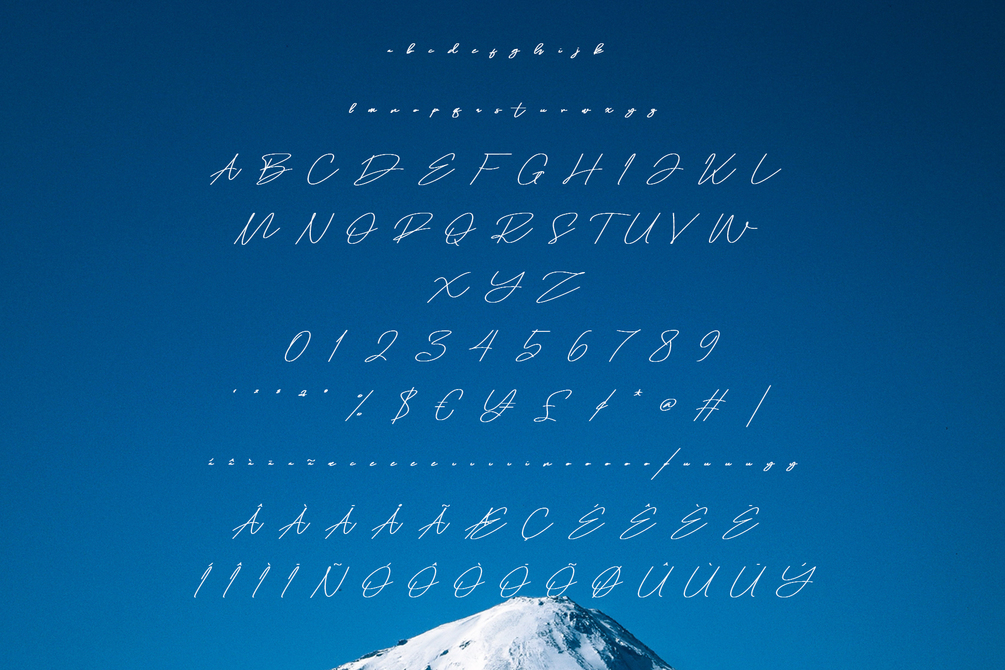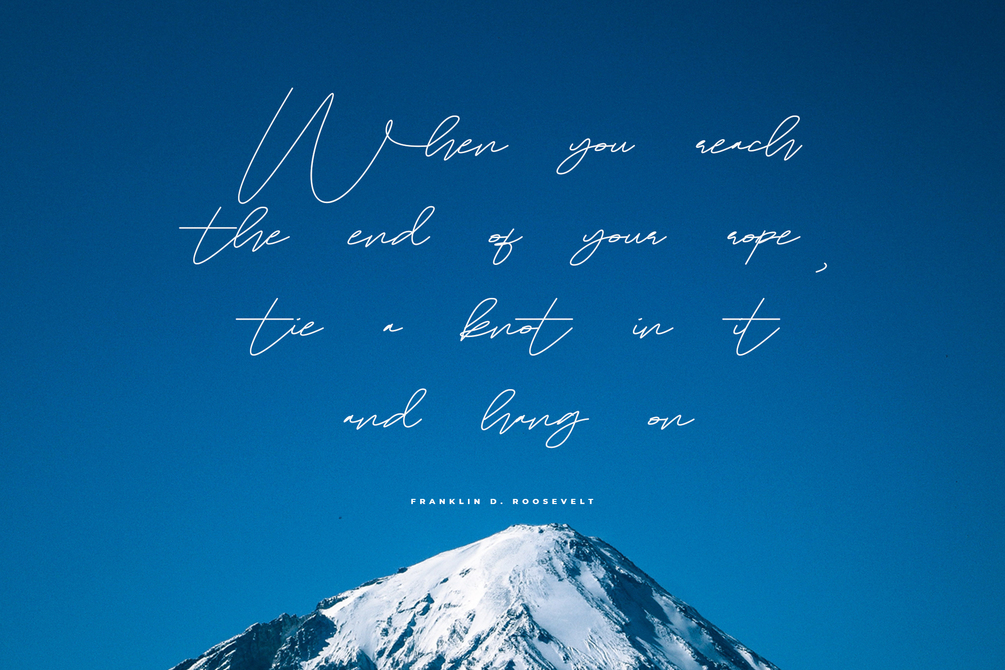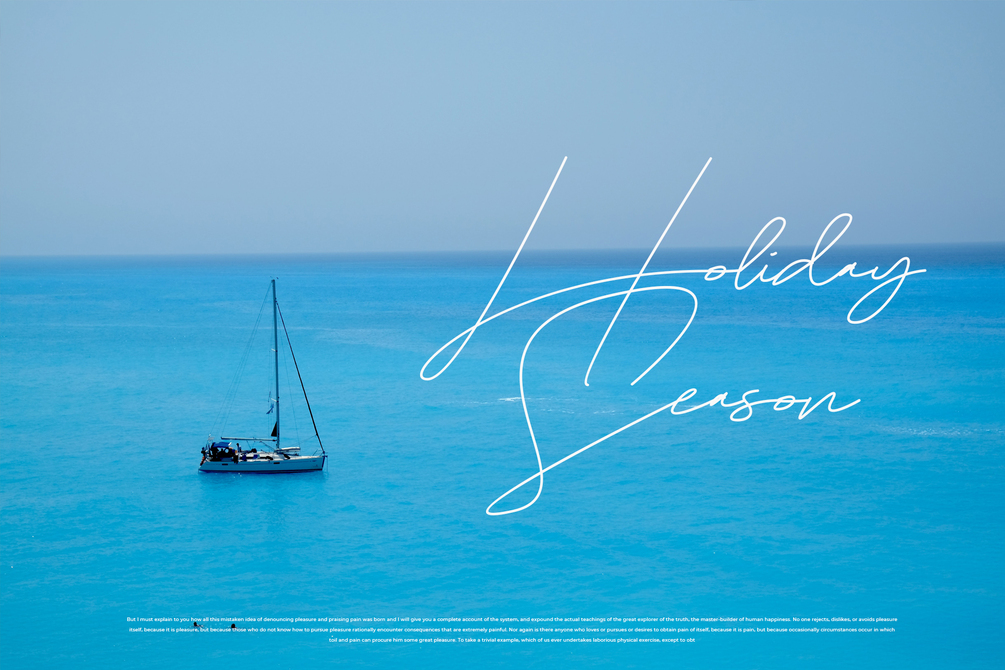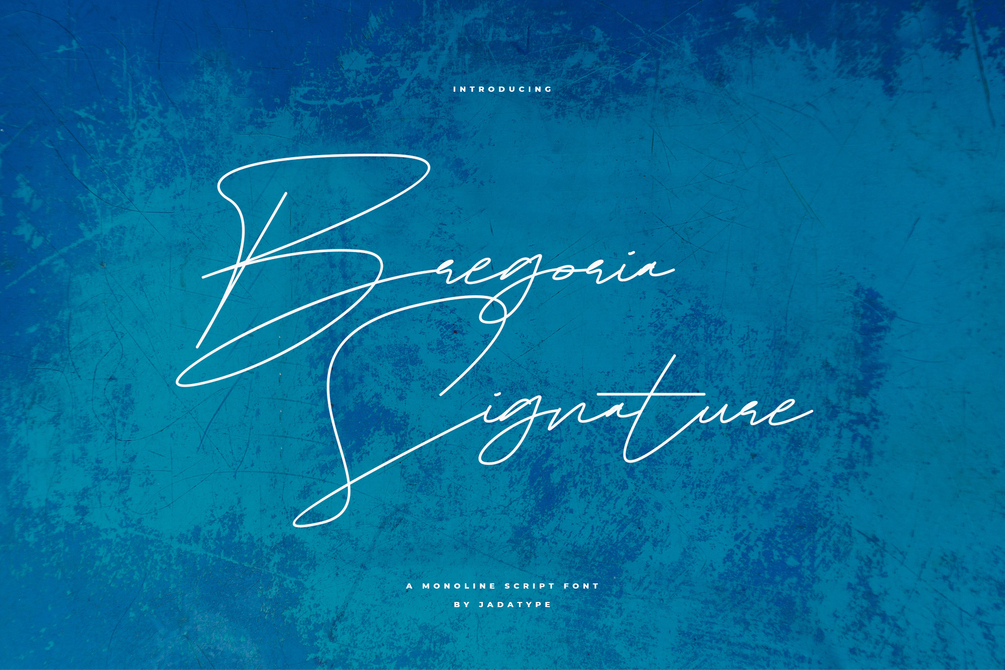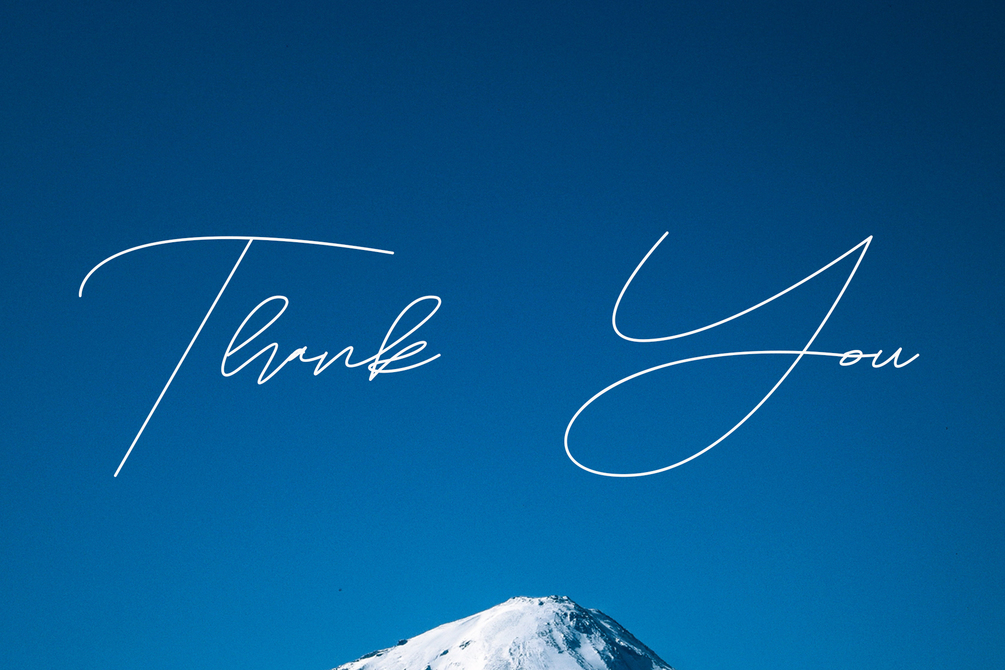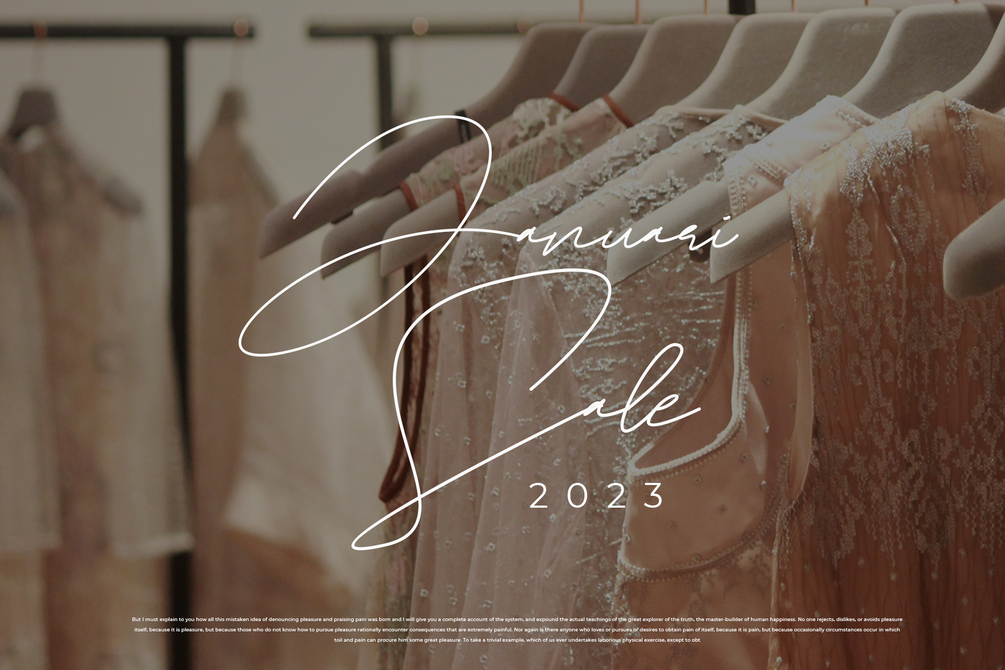
Bregoria Signature
Bregoria Signature is a font with stylish script. suitable for logotype, branding, music cover, logotype, products, social media and so on. contains standard English letters, numbers, punctuation, and several accents that support multilingualism.